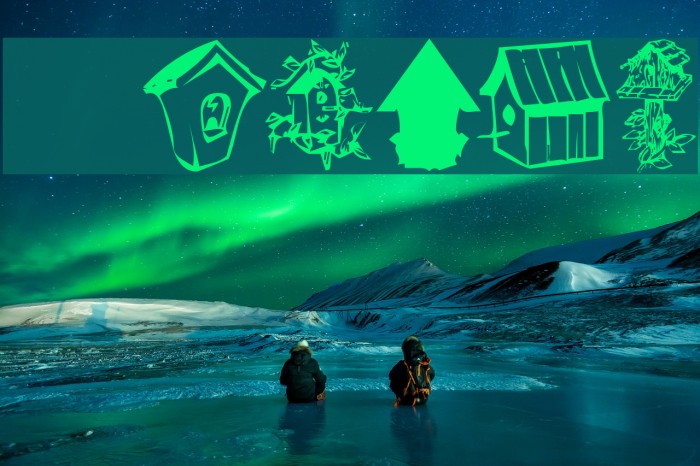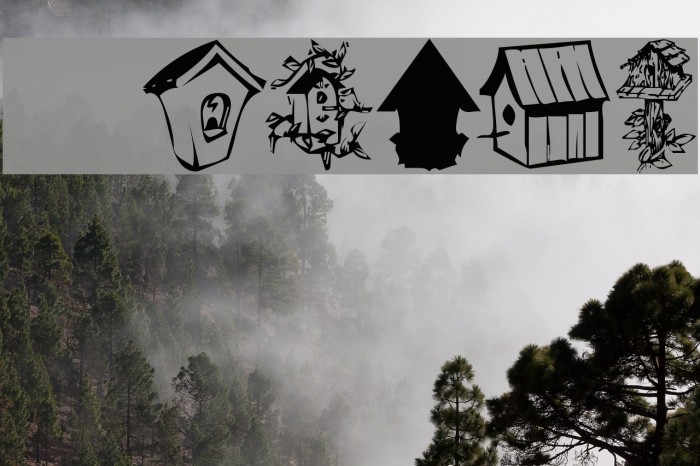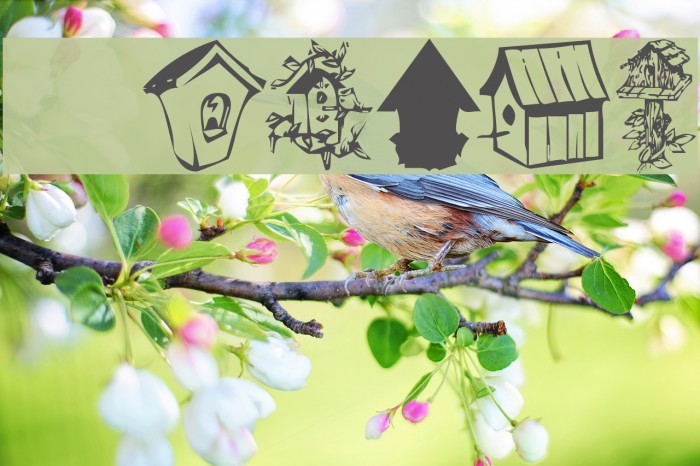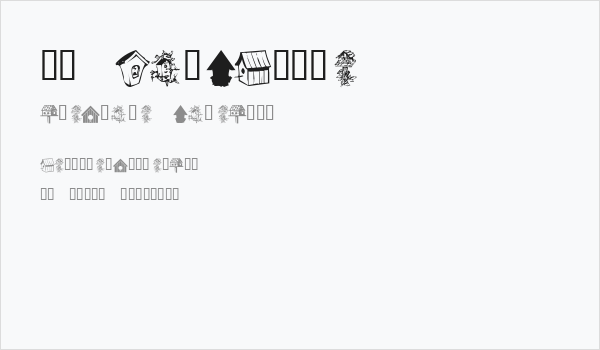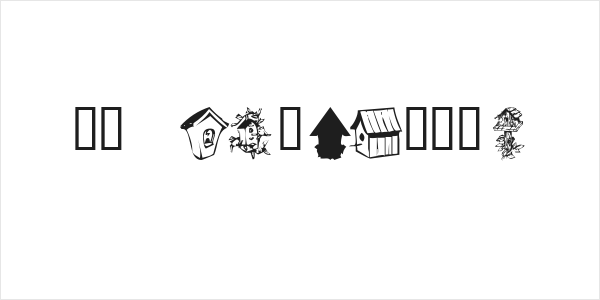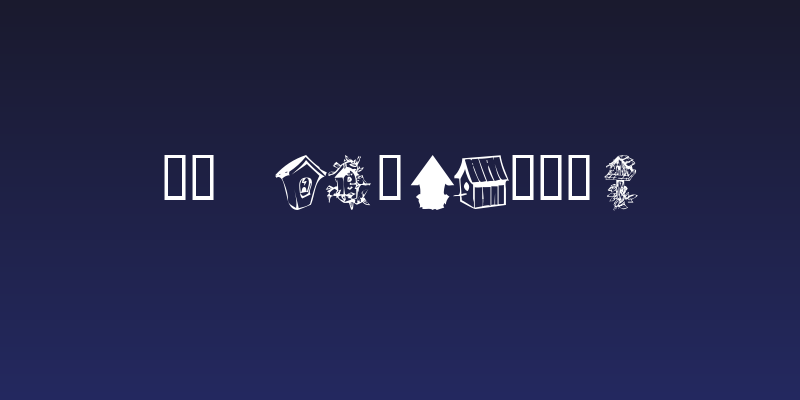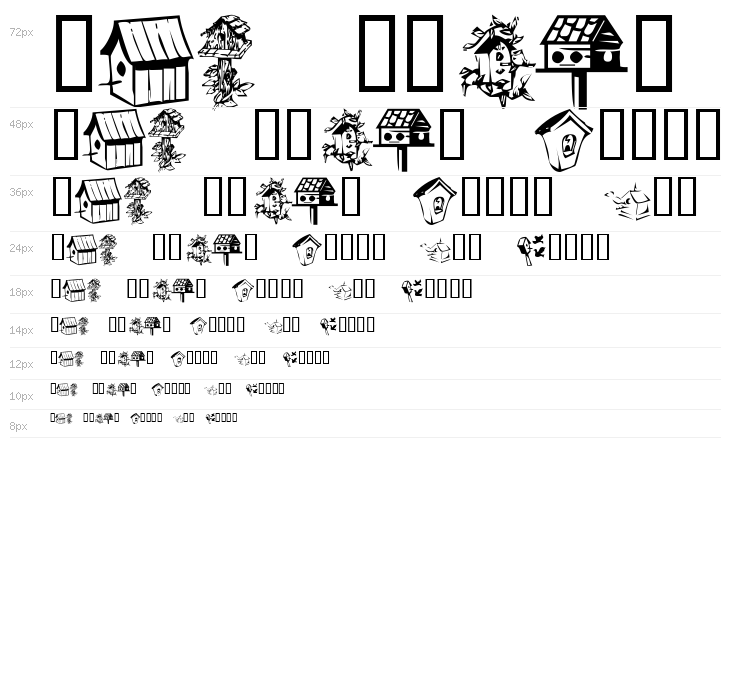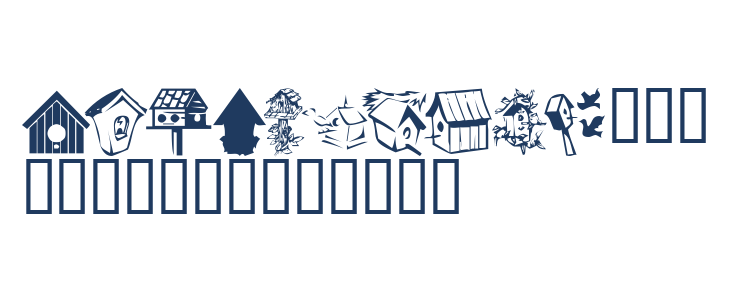
KR Birdhouse Font
KR Birdhouse Description
This decorative font features a series of charming birdhouse illustrations, each uniquely designed with intricate details. The birdhouses vary in style, from simple and rustic to more elaborate and whimsical designs. The font captures a playful and artistic essence, making it ideal for creative projects that require a touch of nature or a homey feel. The illustrations are bold and clear, ensuring they stand out in any design. This font is perfect for adding a unique, handcrafted look to your work.